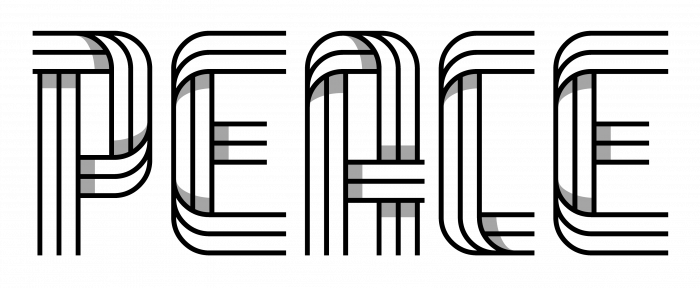
How well resolved, what joy every time we see a new work of yours! May Aine na gClair keep you under her protection during the cold days of this winter, old friend in the distance! Seo chugat do shláinte 🍻 !
Holy guacamole, such craftsmanship on display!
I do think the mid section of number 4 sits a bit low in my humble opinion. But other than that you nailed it.
Perhaps something like this would look more balanced:
Loving the little ribbons! Just curious if it would be possible to add little connector pieces, for joining letterforms?
Cool alternate z, was that in from its first release? Cuz I must have overlooked it..
Three TPs in a row (you still make the difference in FS)! Triple congratulations, compañero! (👍 Remembering architaraz's KD Xxies first sample).
Love all of the twists and turns, especially "8"